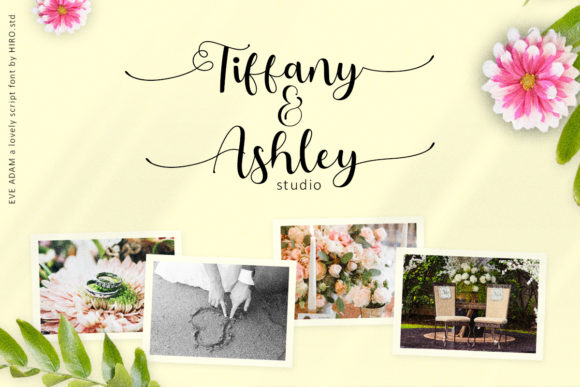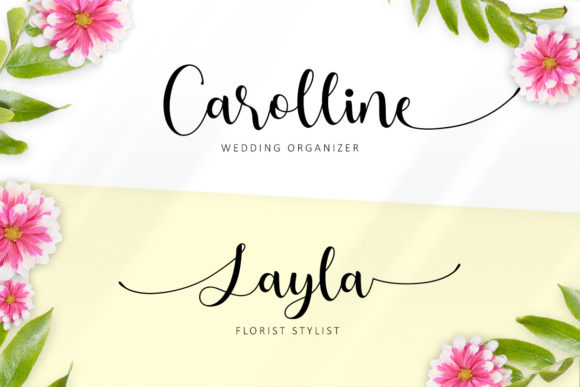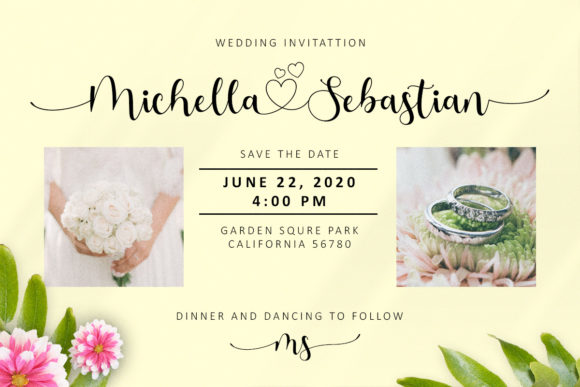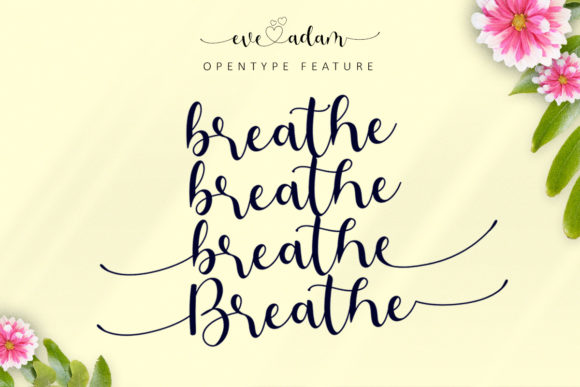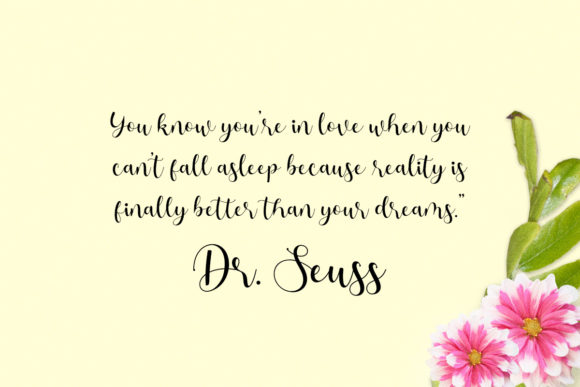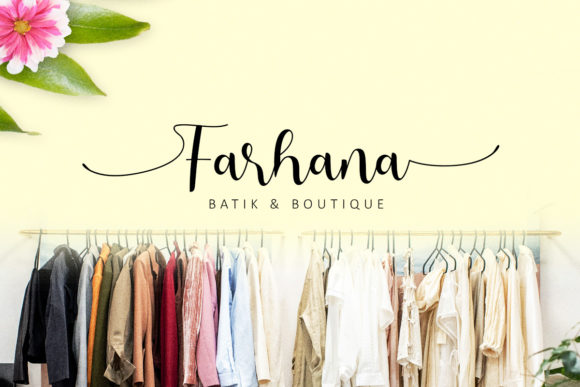
Eve Adam Font: Elevate Your Designs with Elegance and Sophistication
In the world of typography, a font can make or break a design. It’s the perfect blend of style, elegance, and readability that can elevate a project from ordinary to extraordinary. If you’re a designer or crafter looking for a font that exudes class, sophistication, and harmony, look no further than the Eve Adam Font. In this article, we’ll dive into the world of Eve Adam, exploring its features, benefits, and uses, and why it’s a must-have for any creative project.
What is Eve Adam Font?
Eve Adam Font is an elegant, classy, dynamic, and stylish handwritten font that has taken the design world by storm. Its unique charm lies in its ability to bring a sense of harmony to any design, making it incredibly easy to pair with other fonts. The result is a beautiful, cohesive look that elevates the overall aesthetic of a project.
Key Features of Eve Adam Font
- Elegant and Classy: Eve Adam Font boasts a sophisticated and refined style that’s perfect for high-end designs, luxury brands, and elegant crafts.
- Dynamic and Stylish: With its unique handwritten flair, Eve Adam Font adds a touch of personality and whimsy to any design, making it perfect for creative projects.
- Easy to Pair: The font’s inherent harmony makes it incredibly easy to match with other fonts, ensuring a beautiful and cohesive look.
- Versatile: Eve Adam Font is suitable for a wide range of projects, from branding and advertising to crafting and personal stationery.
Benefits of Using Eve Adam Font
So, why choose Eve Adam Font for your next project? Here are just a few benefits of using this stunning font:
- Instant Elegance: Add a touch of sophistication and elegance to your designs with Eve Adam Font’s refined style.
- Time-Saving: With its easy-to-pair feature, you can save time and effort in selecting complementary fonts.
- Unique Look: Eve Adam Font’s dynamic and stylish handwritten flair ensures your designs stand out from the crowd.
- Wide Range of Applications: From professional designs to personal crafts, Eve Adam Font is versatile enough to suit any project.
Who Can Benefit from Eve Adam Font?
Eve Adam Font is perfect for a variety of creatives, including:
- Graphic Designers: Elevate your branding, advertising, and marketing materials with this elegant font.
- Crafters: Add a touch of sophistication to your handmade crafts, stationery, and DIY projects.
- Stationery Designers: Create beautiful and elegant stationery, journals, and planners with Eve Adam Font.
- Web Designers: Enhance your website’s typography with this stylish and readable font.
Eve Adam Font is a game-changer for designers and crafters looking to elevate their projects with elegance, sophistication, and harmony. Its unique features, benefits, and versatility make it a must-have font for any creative endeavor. Whether you’re working on a professional design or a personal craft, Eve Adam Font is sure to bring a touch of class and style to your work.